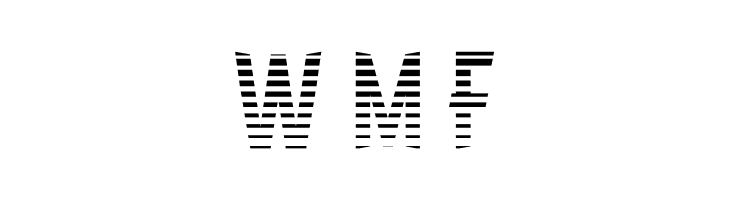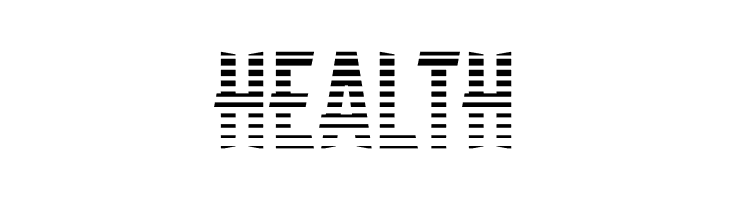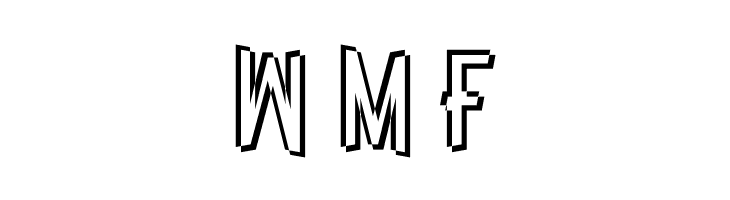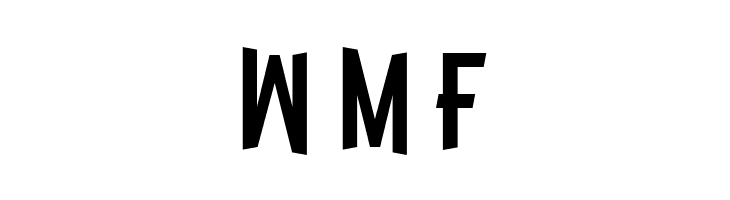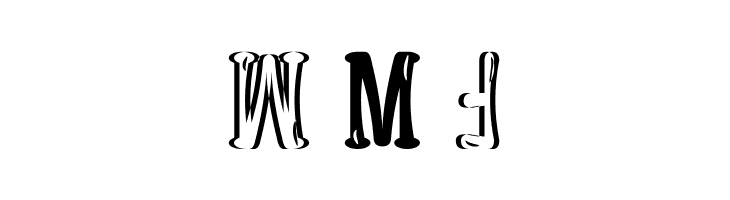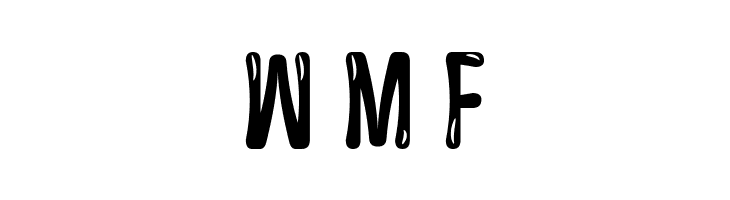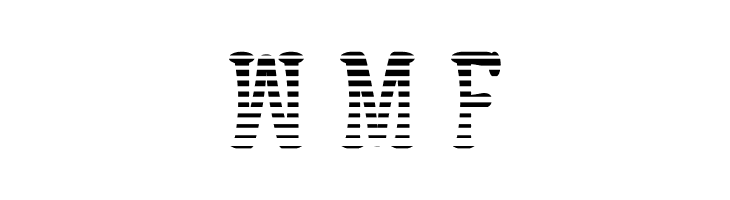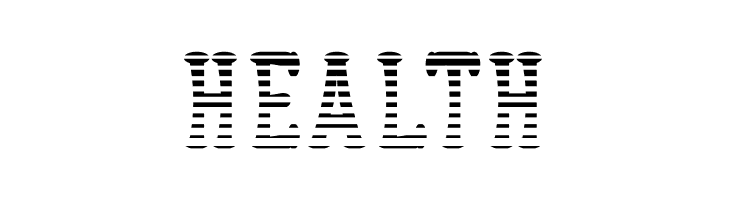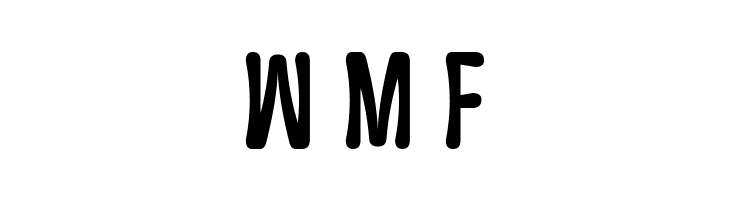
• Astakhov First One Stripe L
A bold, striped font with a modern and dynamic appearance.
• Astakhov First Two Stripes FS
A bold, decorative font with a double-stripe design and modern geometric style.
• Astakhov First Two Stripes
Bold, geometric, and condensed font with a modern style.
• Astakhov First Two Stripes S
A bold, decorative font with a double-stripe shadow effect for a 3D look.
• Astakhov First Two Stripes
A bold, decorative font with diagonal stripes for a dynamic look.
• Astakhov First Two Stripes F
A bold, modern font with thick strokes and tight spacing, perfect for impactful designs.
• Astakhov Dished ChAoS2!
A bold, decorative font with unique textures and patterns.
• Astakhov Dished Glamour FS
A bold, decorative font with star-shaped cutouts and a modern, playful style.
• Astakhov Dished L Serif
A bold, striped serif font with a modern, industrial aesthetic.
• Astakhov Dished
A bold, playful font with a hand-drawn feel and retro-modern aesthetics.